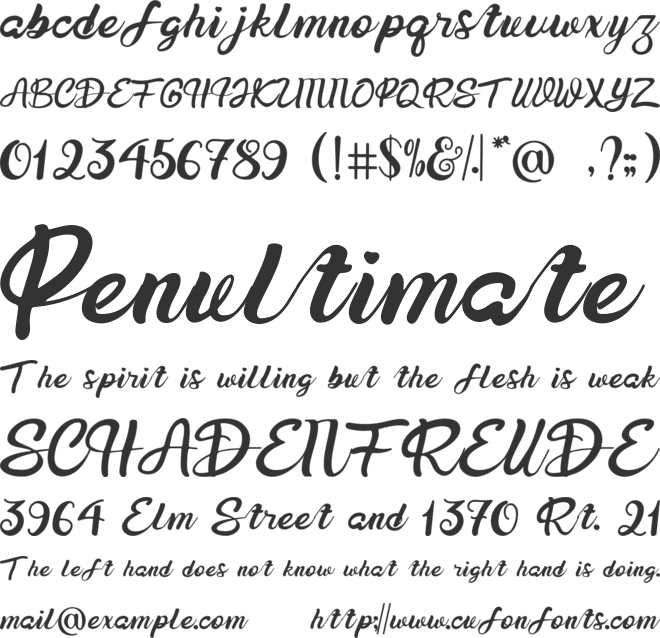
Vintages Font
Vintages is a cursive and timeless handwritten font. It is the best choice for creating eye catching logos, branding and quotes. Every letter has a unique and beautiful touch, which will make your design come alive!